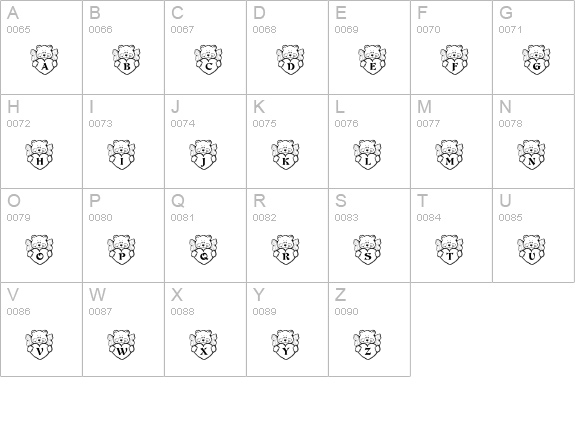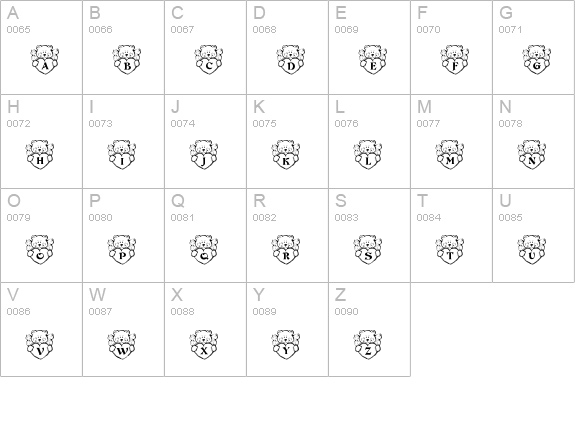
KR Angel Bear Font Details
The KR Angel Bear font is a whimsical and charming typeface that exudes warmth and friendliness. With its rounded edges and playful design, this font is perfect for adding a touch of sweetness to your projects. Whether you're creating greeting cards, invitations, or branding materials, KR Angel Bear is sure to bring a smile to your audience's face. What's even better is that KR Angel Bear is available for free download at FontsMarket.com! That's right, you can access this delightful font at no cost and start using it in your designs right away. Don't miss out on the opportunity to add a touch of magic to your creations with the adorable KR Angel Bear font.